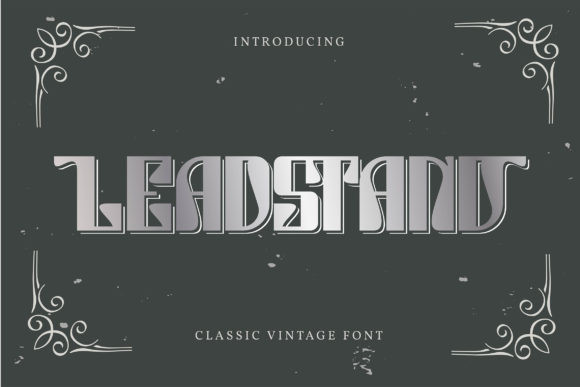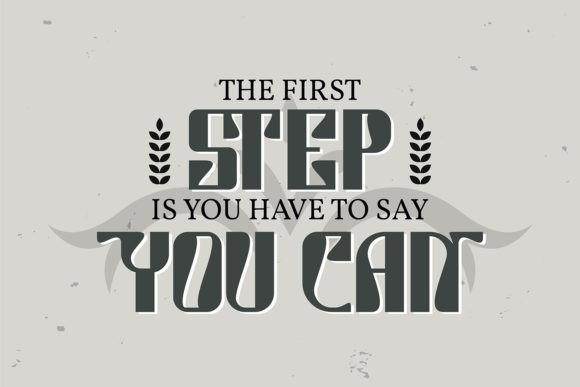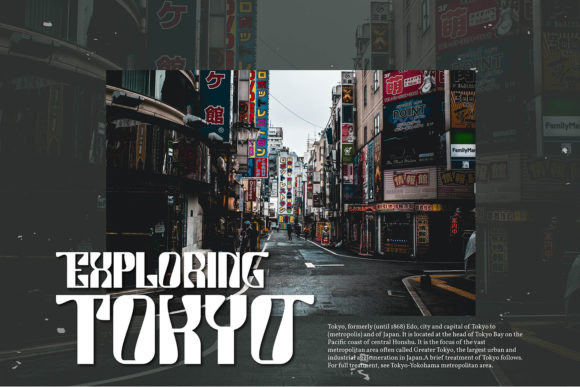
Leadstand Font
Leadstand is a bold and retro styled display font. Add this assertive font to each of the creations that require a strong and unique touch.